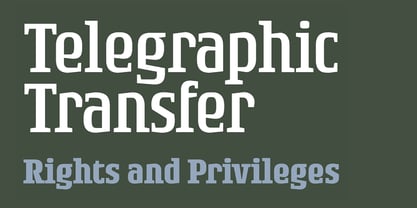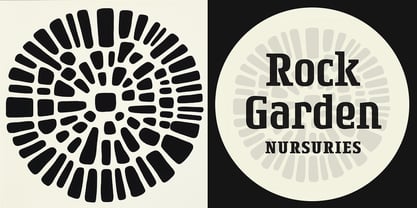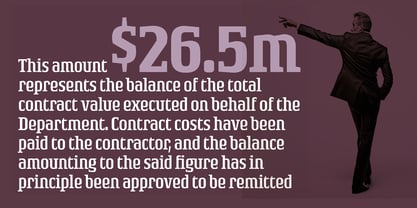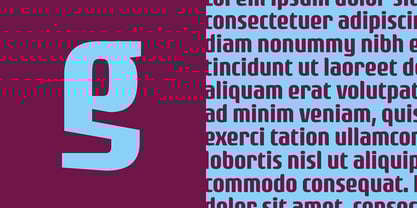
Rogue Serif
by Device
The Rogue Serif Font Family was designed by Rian Hughes and published by Device. Rogue Serif contains 6 styles and family package options. More about this family
Recently the Rogue family was designed as an accompaniment to Paralucent for Loaded, London's notorious lads-mag that had found its design being cloned by the competition and sought something unique to set it apart. Clean and legible and just a bit edgy, Rogue works on a wide variety of projects, from magazines to office signage.
Designers: Rian Hughes
Foundry: Device